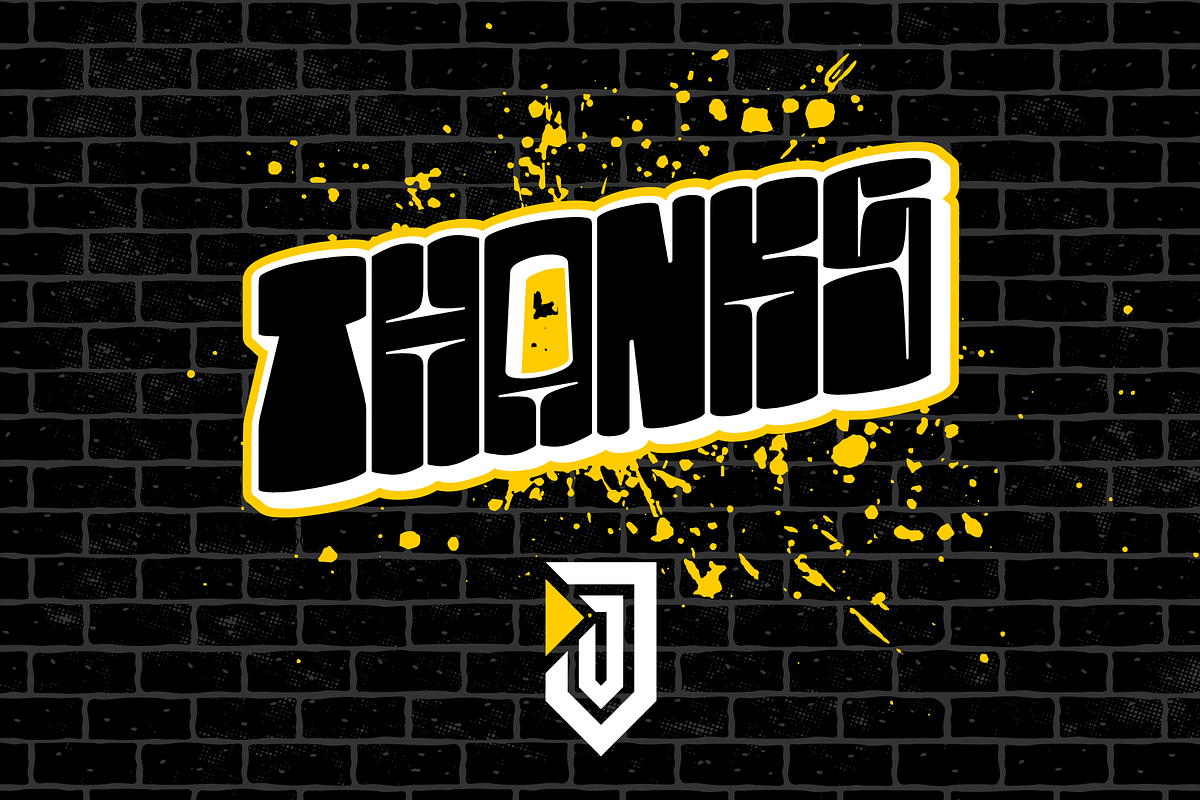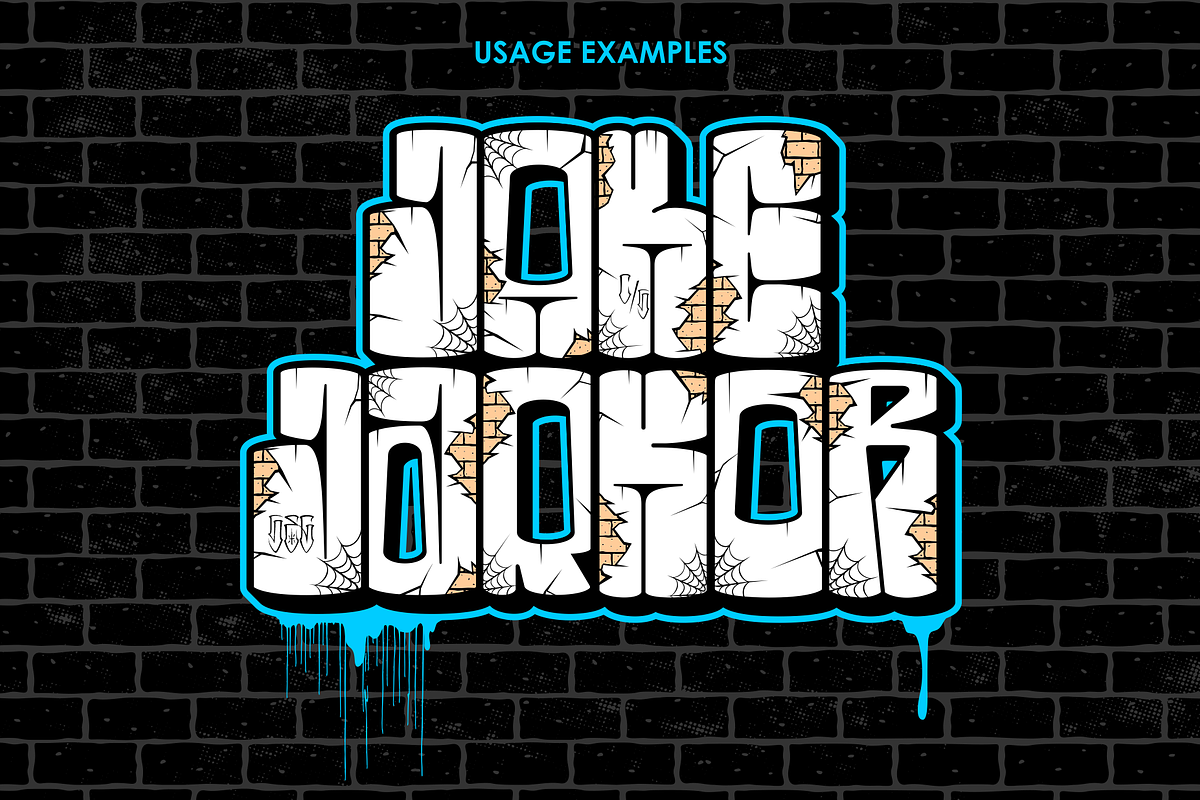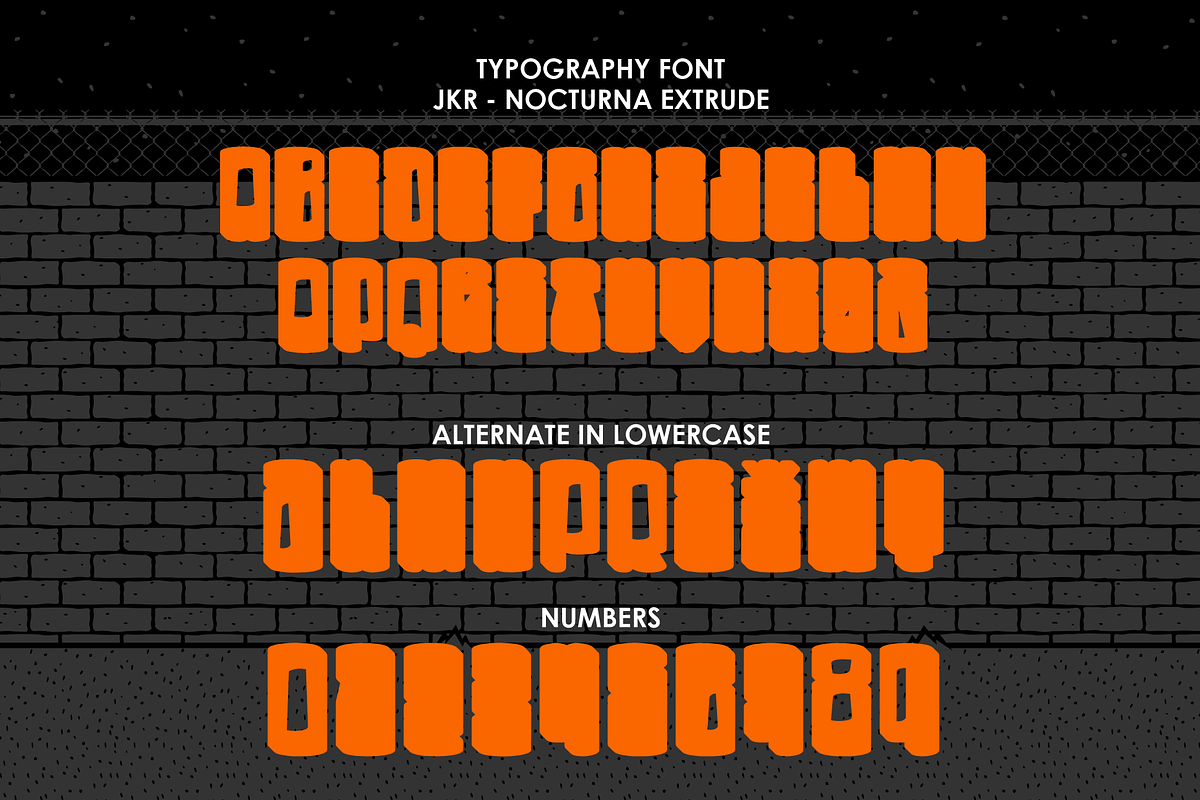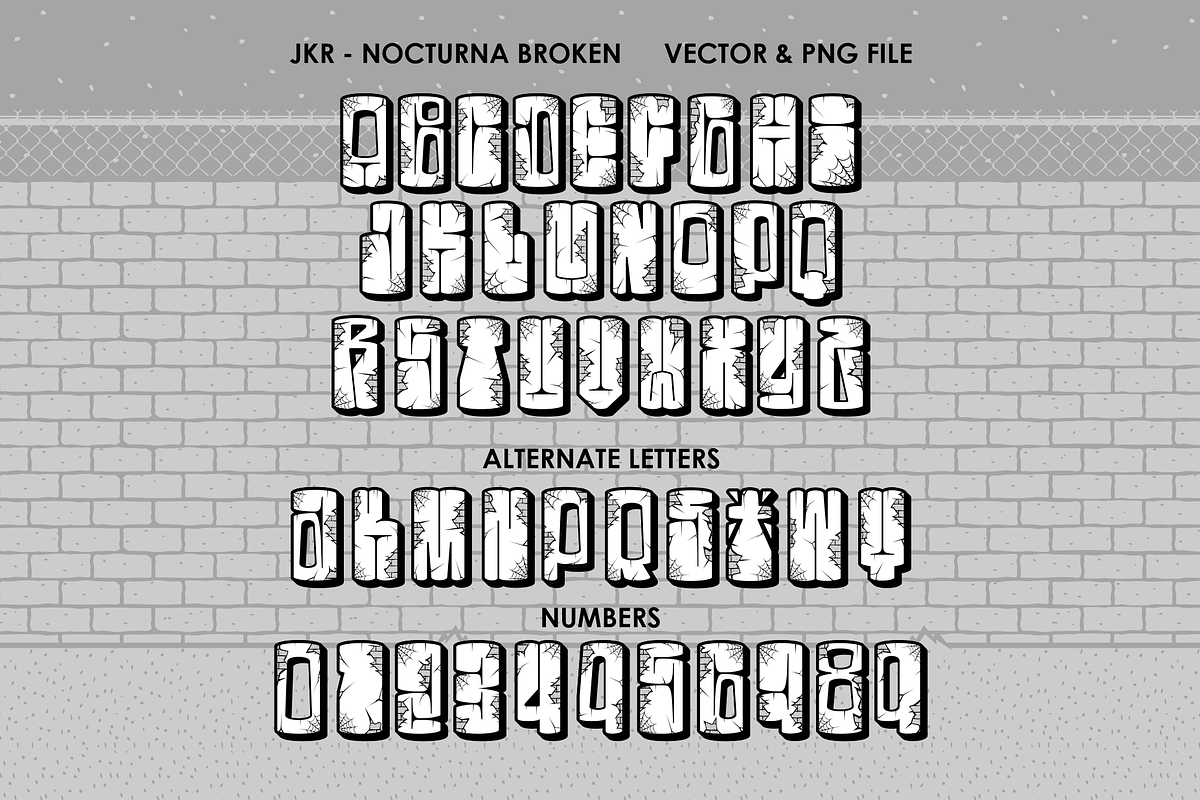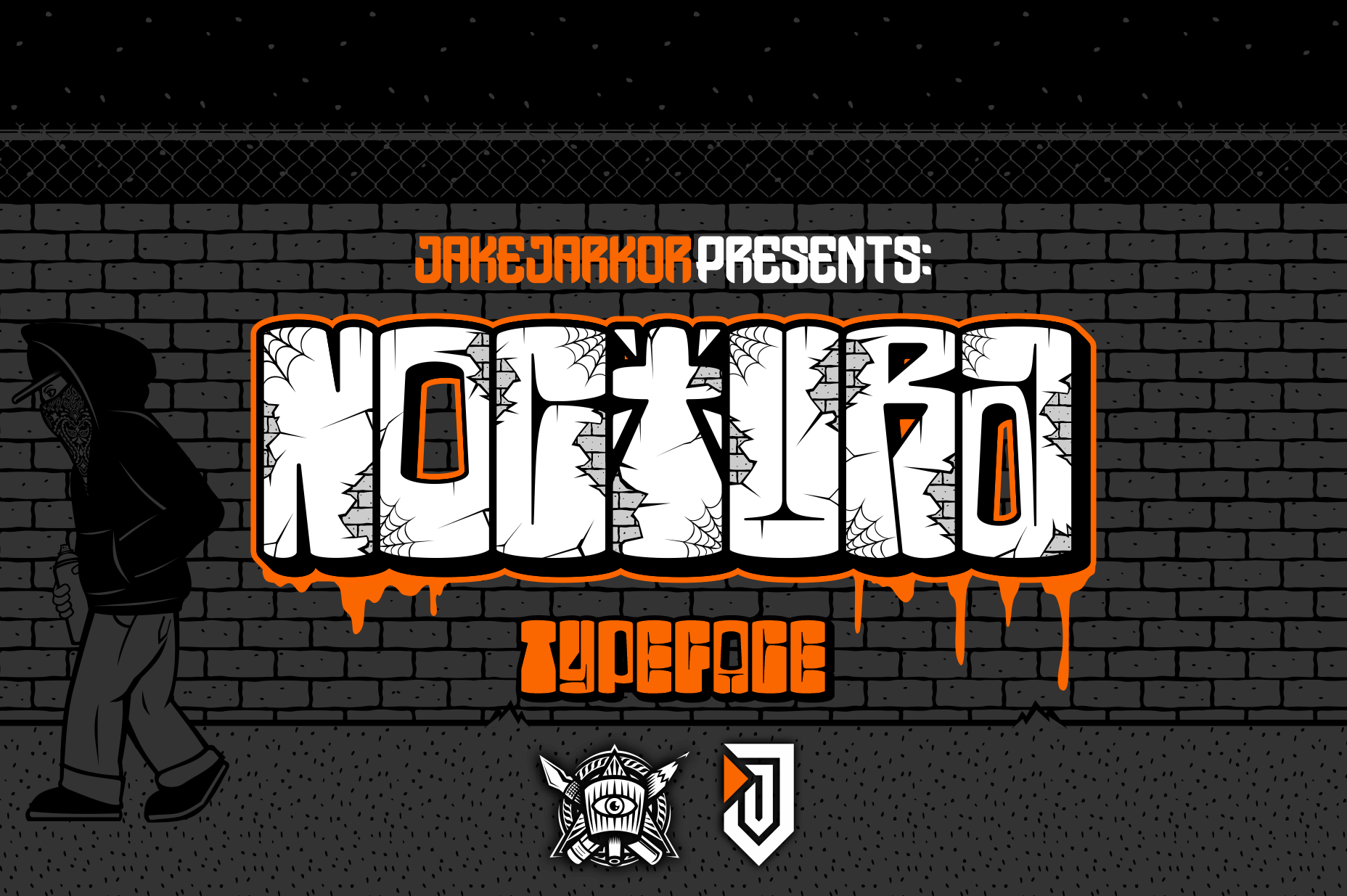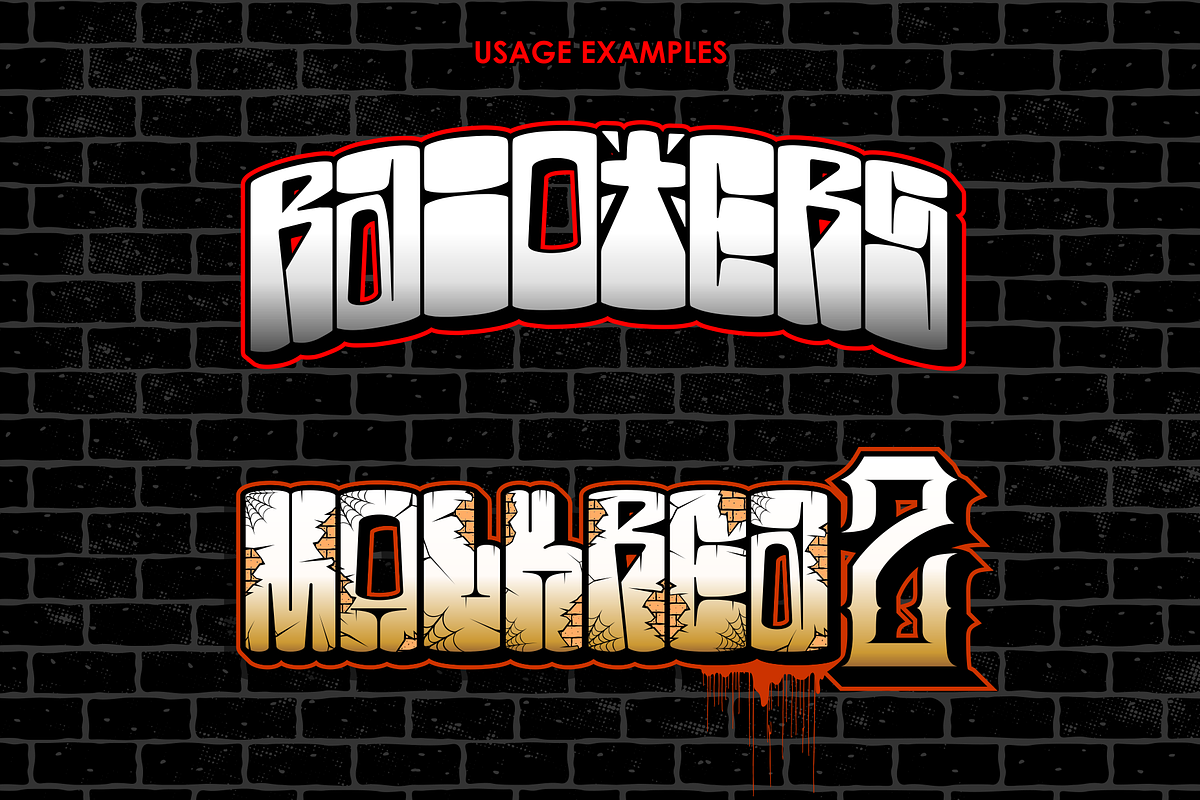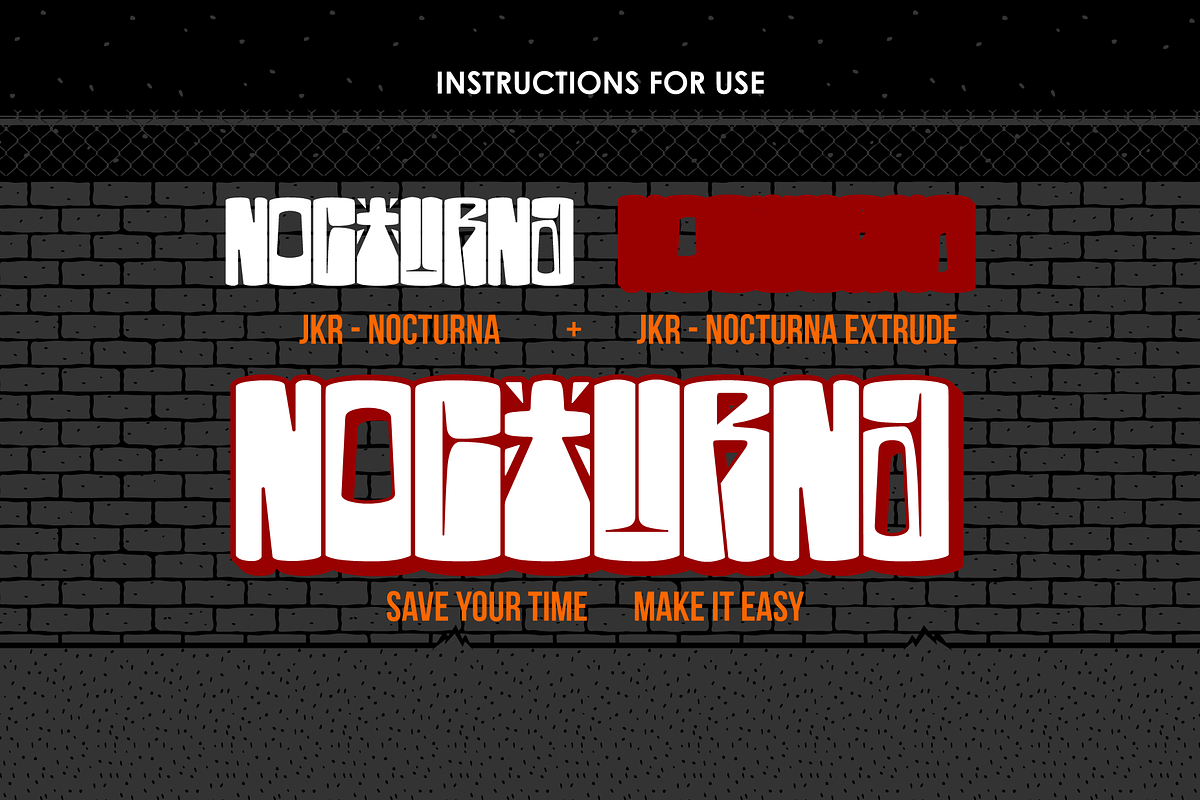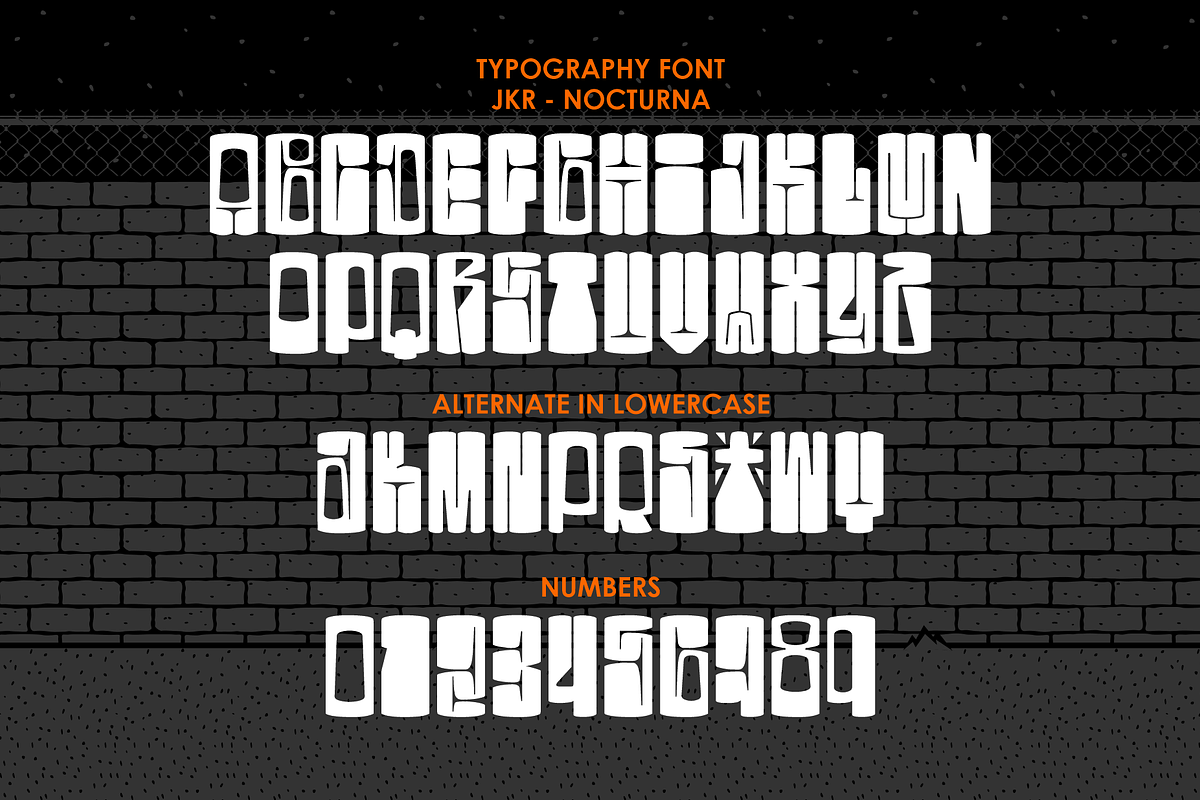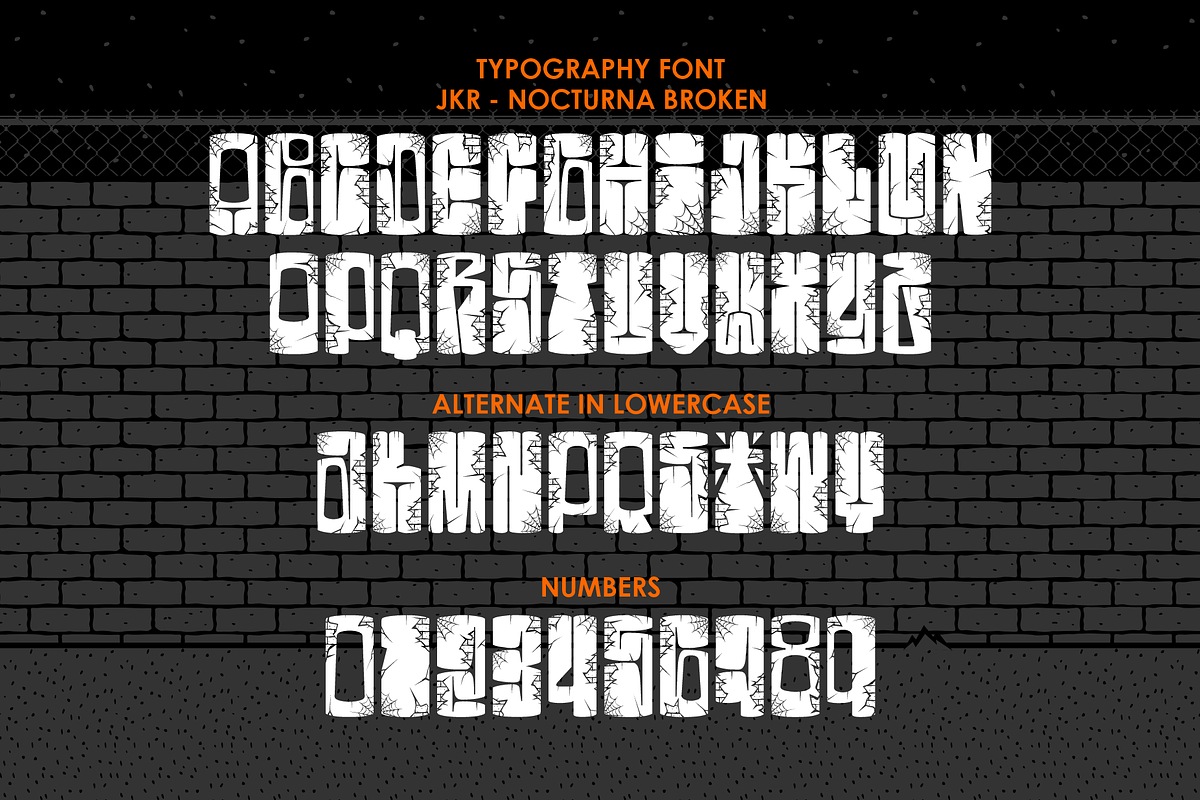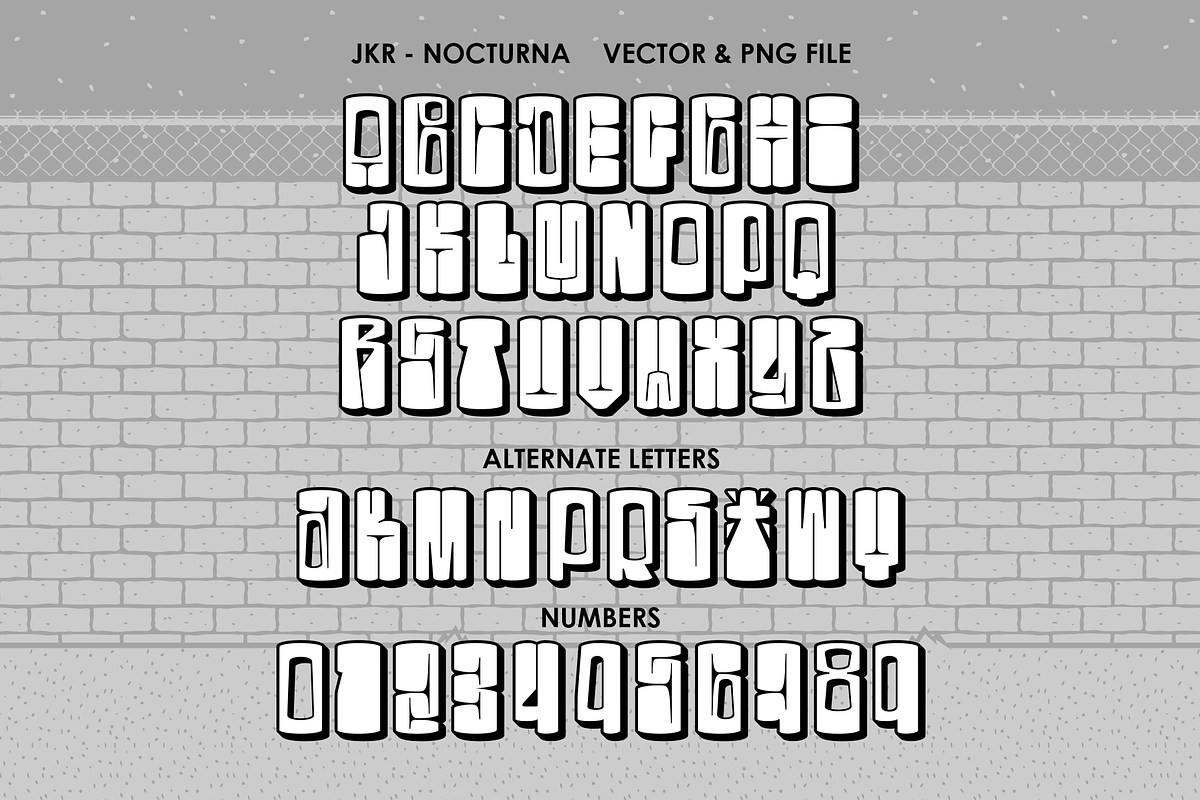
NOCTURNA | FONT + VECTOR FILES + PNG
Jake Jarkor Presents: NOCTURNA is a typography inspired in graffiti, chicano culture and street art. It works well with normal size text, but it works even better for large displays, short words, or even just to incorporate a few or single characters in a design. Suitable for many creative products & tattoo designs, like posters, t-shirt, street wear, logo, signage, headlines, etc.
Jake Jarkor Presenta: NOCTURNA es una tipografía inspirada en el graffiti, la cultura chicana y el arte de la calle. Funciona bien con el texto de tamaño normal, pero funciona incluso mejor para diseños de gran tamaño, palabras cortas, o incluso sólo para incorporar un par de caracteres individuales en el diseño. Es una tipografía muy conveniente para productos creativos y diseños para tatuajes, como carteles, playeras, logotipo, señalización, titulares, etc.